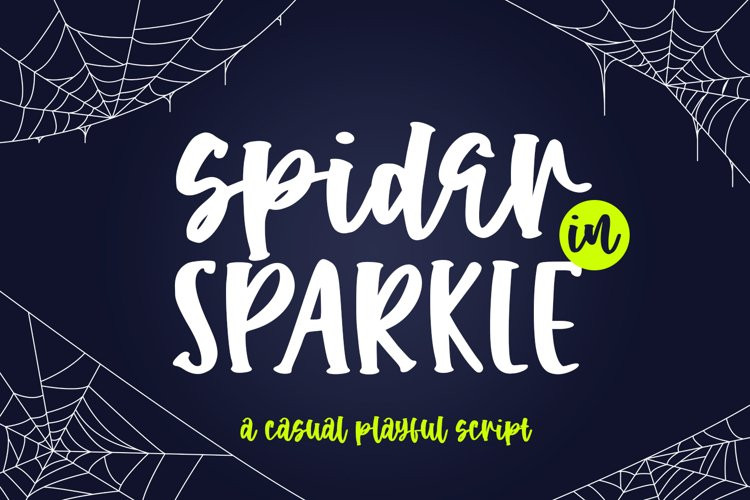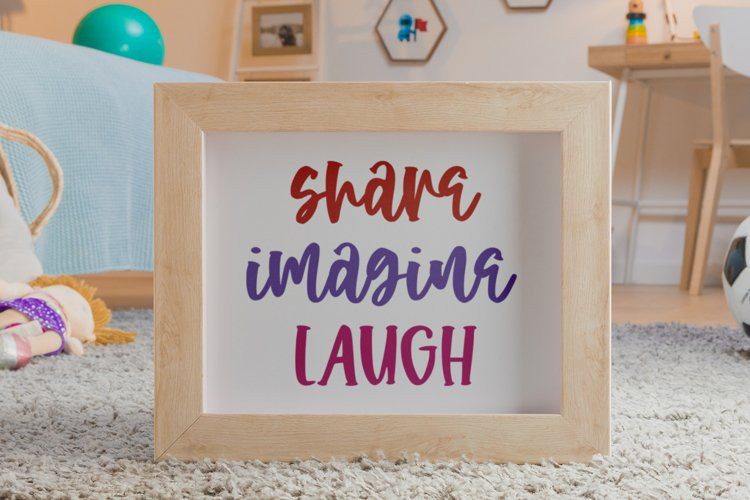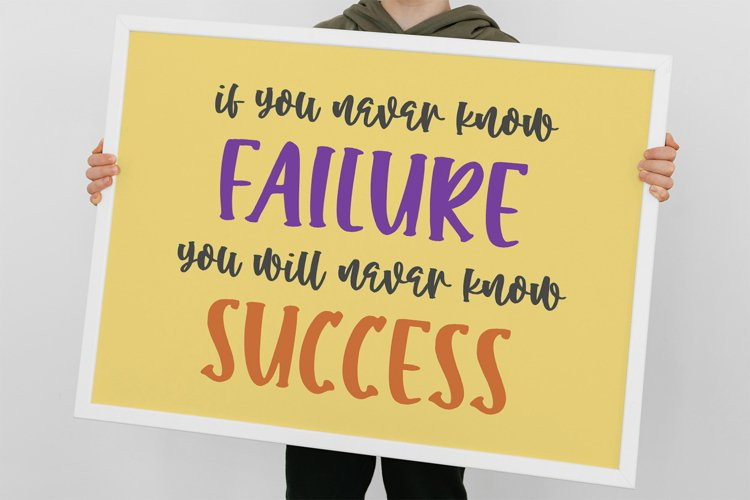
Spider in Sparkle Font
Spider in Sparkle FontSPIDER IN SPARKLE is a natural handwritten font. that is great for t-shirt design, sticker, tote bag design, card, banner, branding, packaging, quotes, logo, signature, social media, and anything craft project.